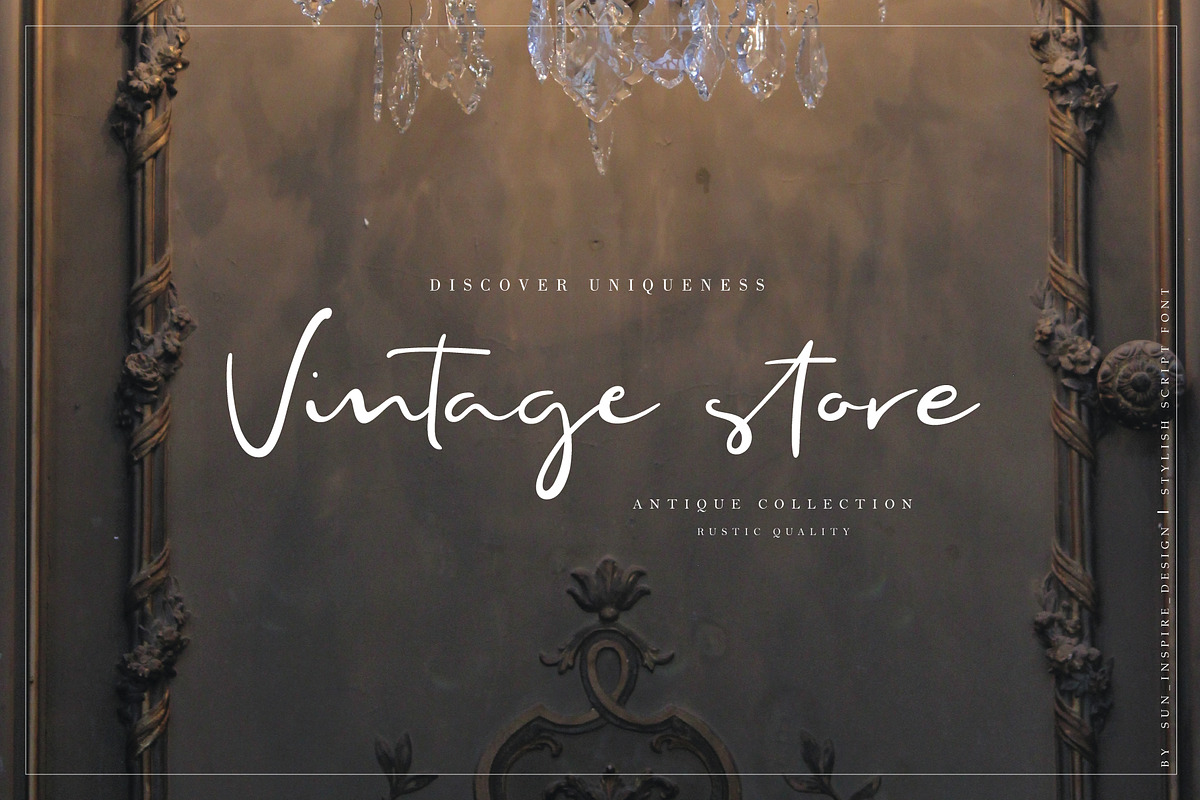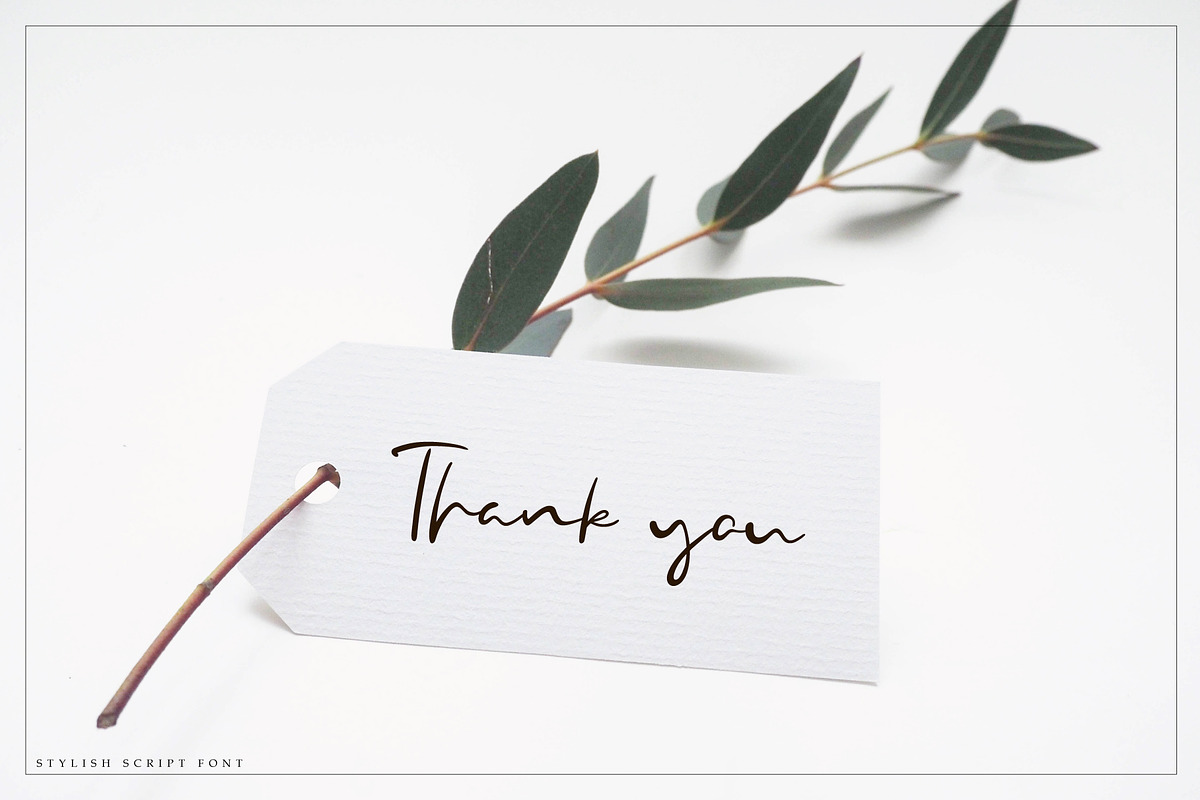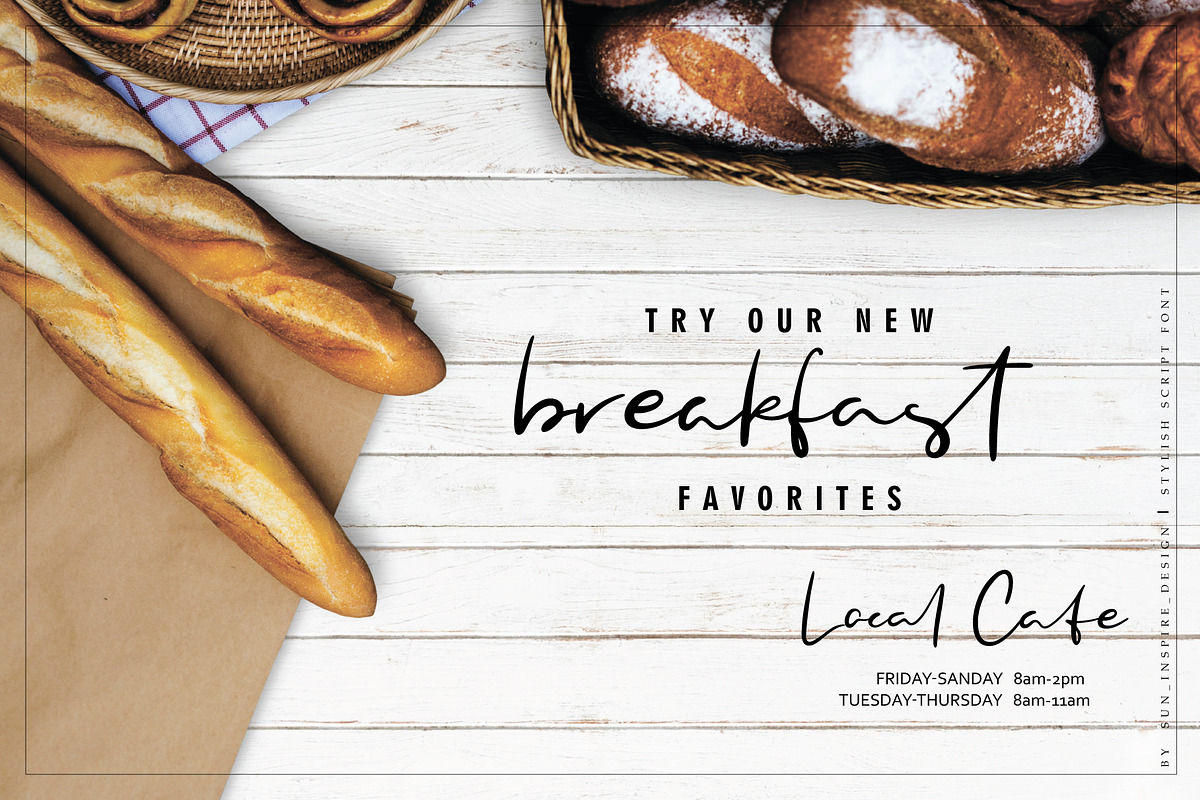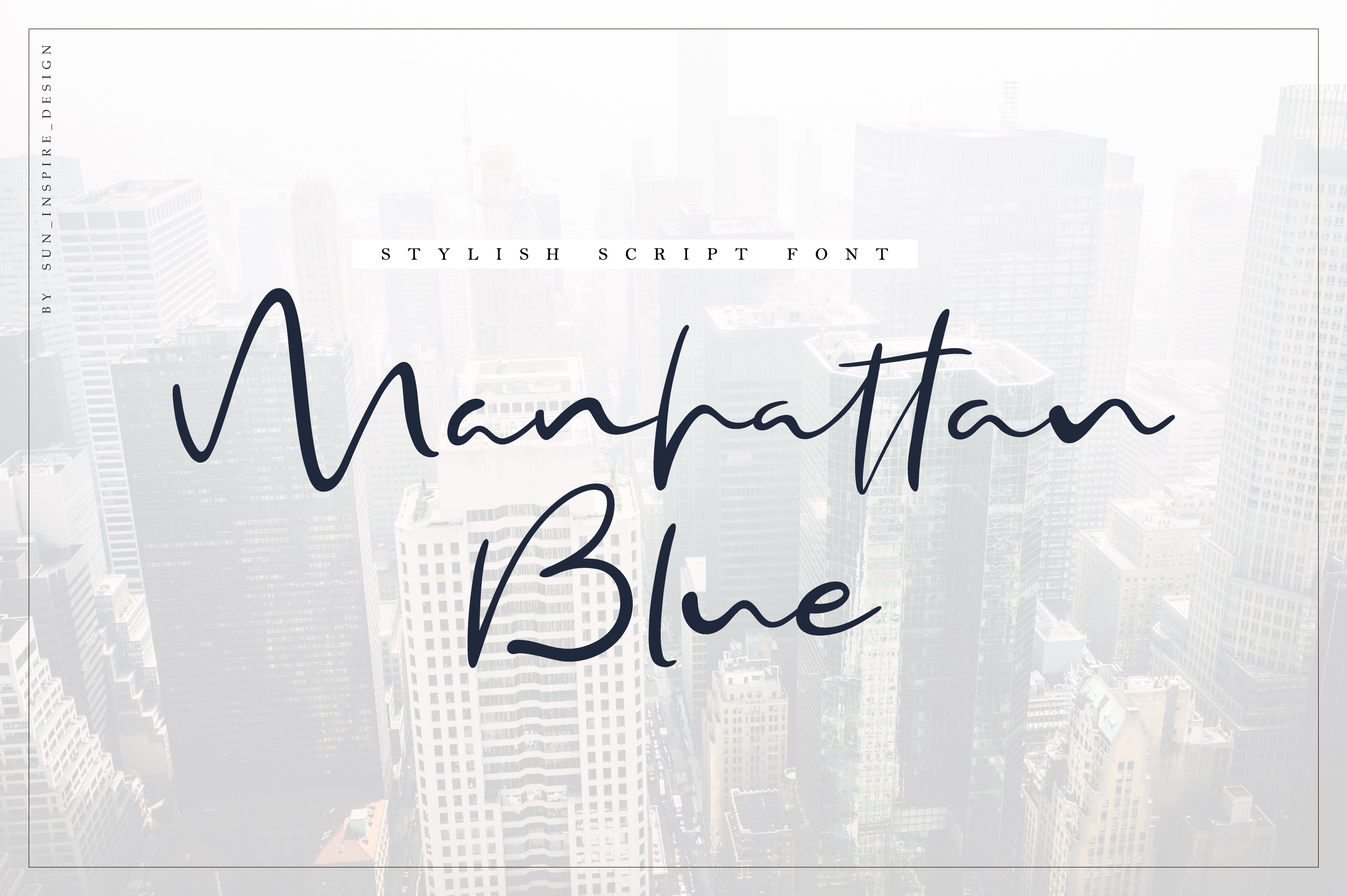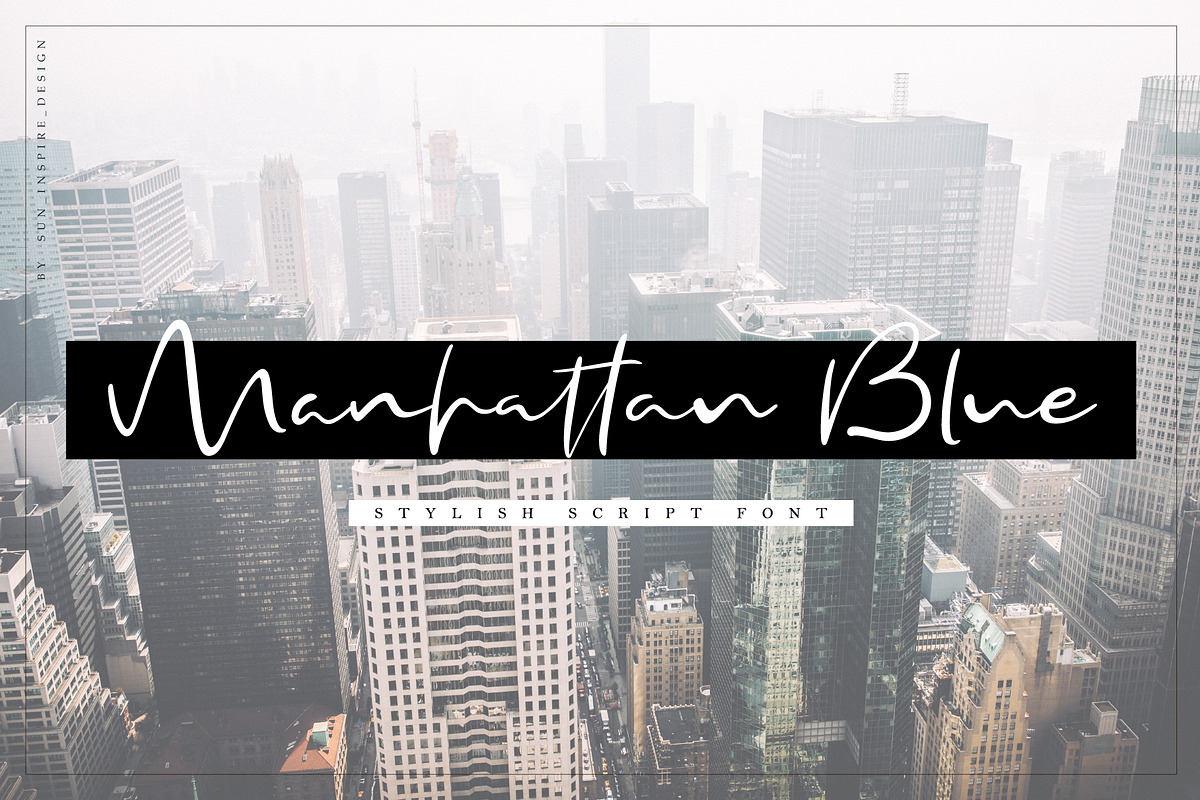
Manhattan Blue Script Font
Manhattan Blue is stylish handwritten font with casual modern look. Every single letter have been carefully crafted to make your work looks interesting and unique. This font will look good on various design projects - branding, magazines, blog posts, social media, business cards etc.
- a full set of upper & lowercase characters;
- a full set of alternate upper & lowercase characters;
- numerals and punctuation;
- 60 unique ligatures.